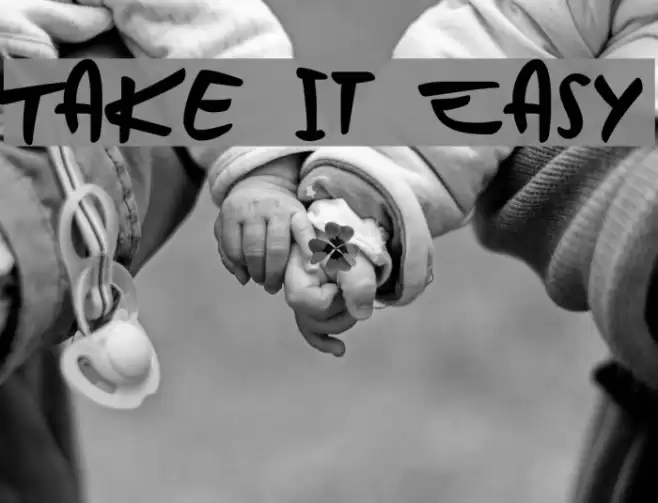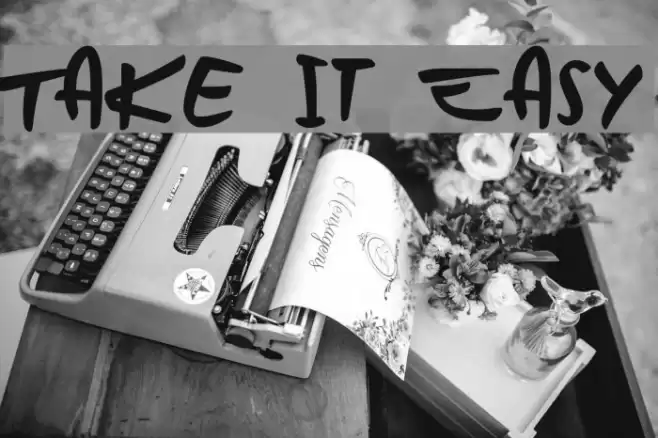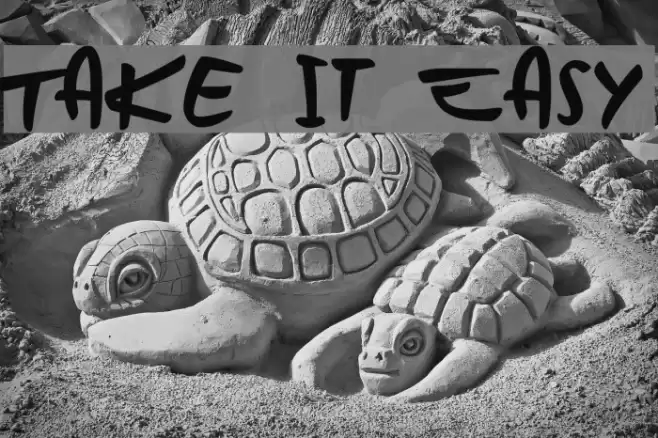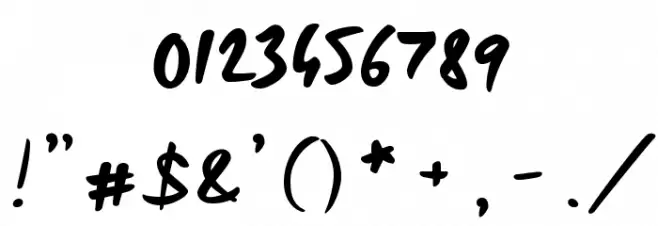
Take it Easy Font
Take it Easy Description
This font features a bold and dynamic handwritten style, characterized by its fluid and expressive strokes. The uppercase and lowercase letters maintain a consistent flow, with slightly exaggerated curves that give it a playful and energetic appearance. The numerals and special characters are crafted with the same lively spirit, ensuring a cohesive look across all glyphs. Its informal and friendly aesthetic makes it ideal for projects that require a personal touch. The font's design is both approachable and versatile, suitable for a variety of creative applications.
A bold, dynamic handwritten font with fluid, expressive strokes from Handwritten fonts.
- Proposed Projects: Ideal for greeting cards, invitations, posters, and branding that seeks a personal and lively touch.